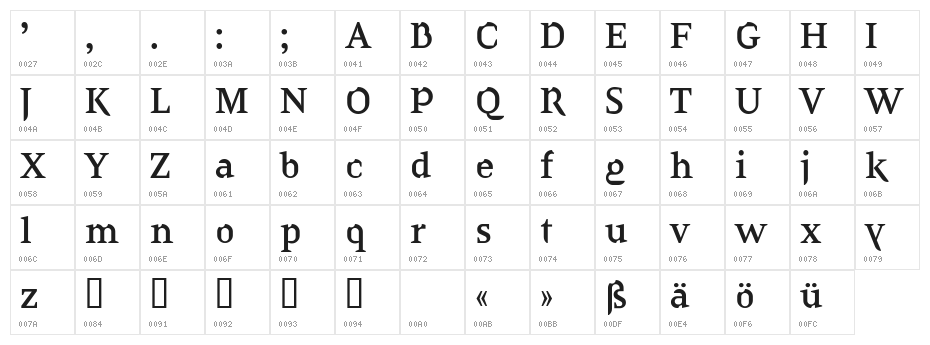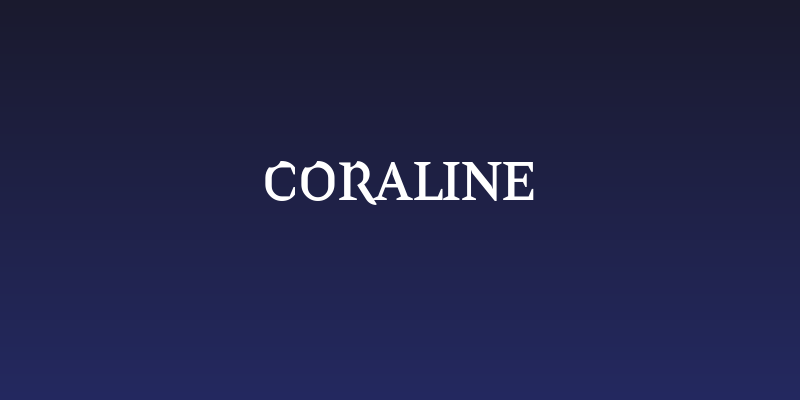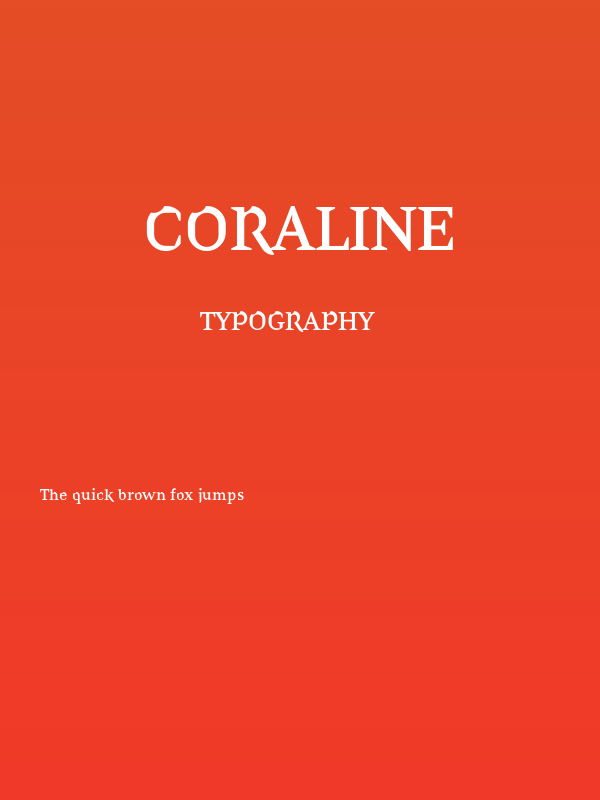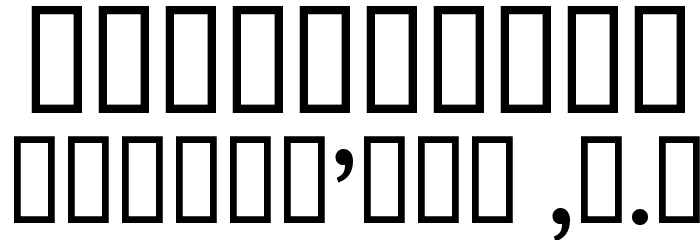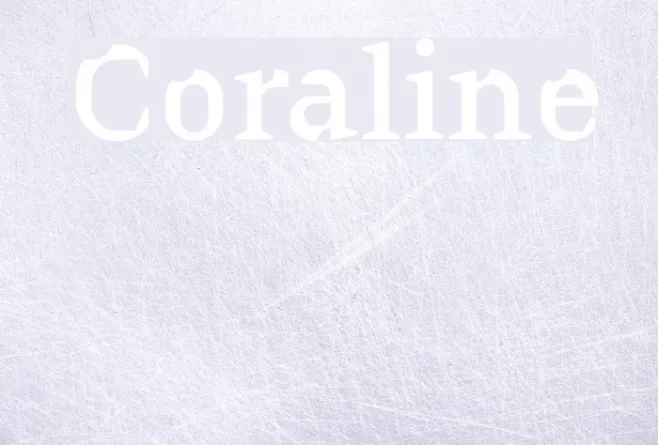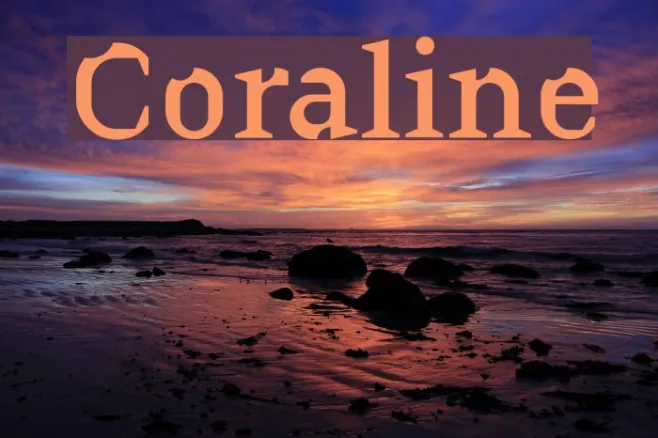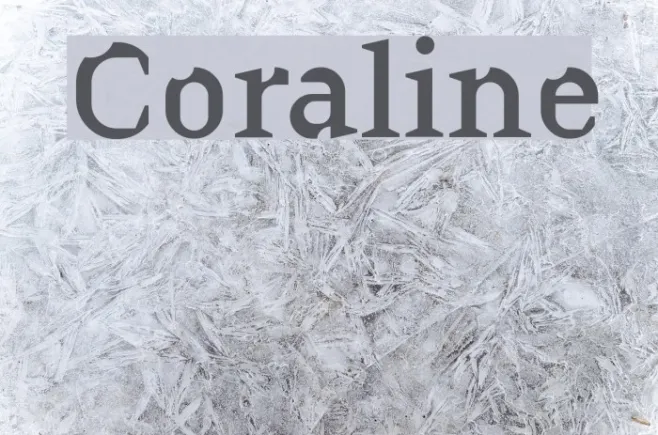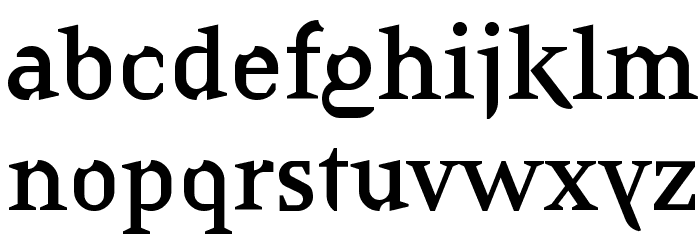
Coraline Font
Coraline Description
This font features a classic serif style with a slightly whimsical touch, characterized by its distinctively curved and pointed serifs. The uppercase letters are bold and prominent, while the lowercase letters maintain a consistent flow with rounded edges and subtle flourishes. The numerals are clear and legible, matching the overall aesthetic of the font. Special characters are designed with the same attention to detail, ensuring a cohesive look across all glyphs. The font's design is both elegant and playful, making it suitable for a variety of creative applications.
| Proposed Projects | Ideal for book covers, invitations, branding, and editorial design. |